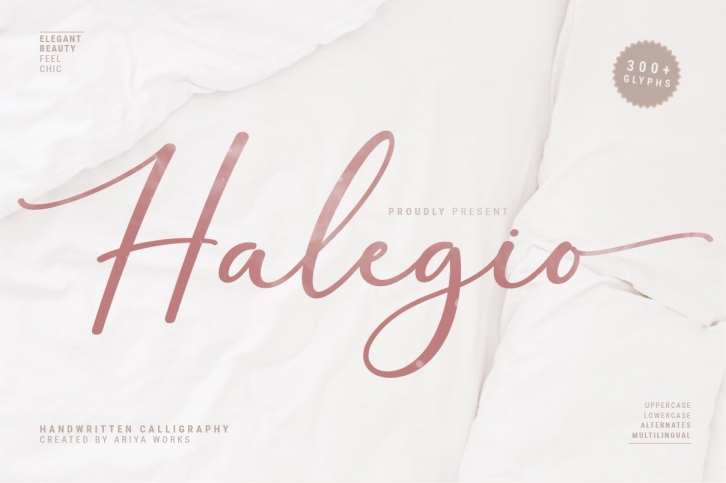
Halegio is a great font that was designed by Ariya Works. Imagine the amount of combinations you can create using this font! The archive is 6.71 MB and it was released on September 16, 2021. Halegio looks beautiful on wedding invitations, greeting cards, logos, posters, labels, t-shirt designs, logos, business cards and is perfect for use in ink or watercolor works, fashion, magazines, packaging and food menus, children's books and more!